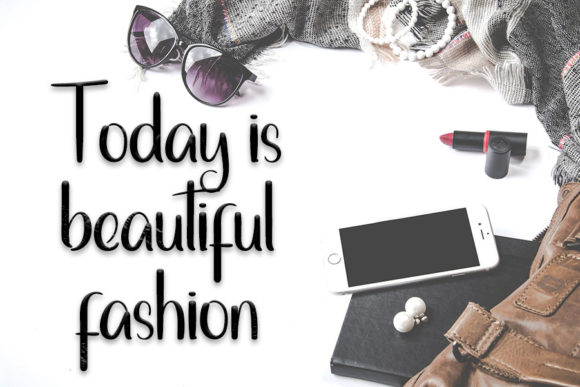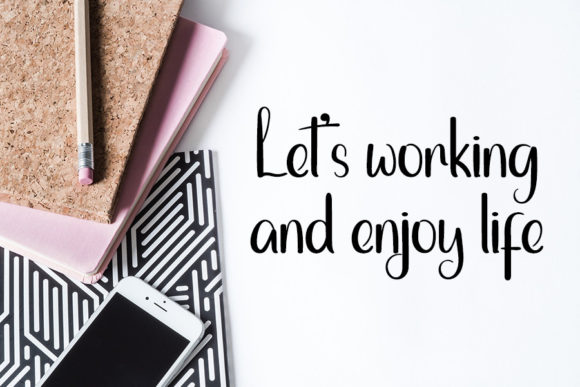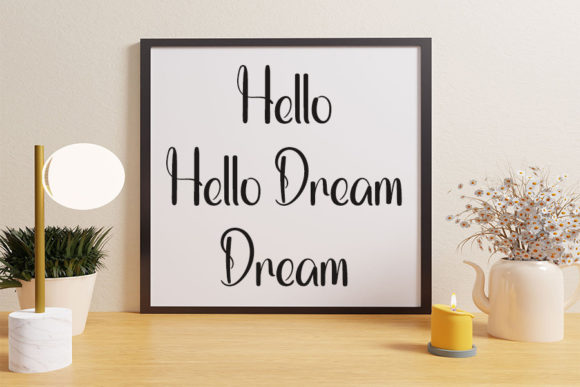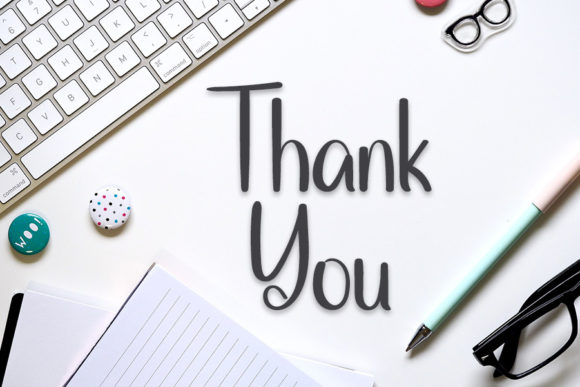
Hello Dream Font: Elevate Your Designs with Timeless Elegance
In the world of typography, fonts play a crucial role in conveying the tone and aesthetic of a design. For those seeking a stylish and contemporary handwritten font, Hello Dream is an exceptional choice. Inspired by timeless classic calligraphy, this font boasts a balanced and varied design, perfect for enhancing the beauty of your projects.
The Essence of Hello Dream Font
Hello Dream is a modern, elegant font that exudes sophistication and refinement. Its design is rooted in traditional calligraphy, yet it features a fresh and contemporary atmosphere that sets it apart from other fonts. The creator of Hello Dream has meticulously crafted each letter to ensure impeccable form, making it an excellent choice for designers and crafters looking to add a touch of luxury to their work.
Key Features of Hello Dream Font
- Handwritten with a Personal Touch: Hello Dream boasts a beautiful, handwritten style that adds a personal touch to any design. Its unique and varied letterforms ensure that your text will stand out.
- Contemporary yet Classic: This font strikes the perfect balance between modernity and timelessness. Its classic roots provide a sense of tradition, while its contemporary twist keeps it fresh and relevant.
- Balanced and Varied: The design of Hello Dream focuses on balance and variation, ensuring that your text flows smoothly and looks great in any context.
- Impeccable Form: Every letter in Hello Dream is crafted with attention to detail, guaranteeing a high level of readability and aesthetic appeal.
Applications of Hello Dream Font
Hello Dream’s versatility makes it suitable for a wide range of design projects. Here are some ideas to get you started:
- Branding and Logos: Create a lasting impression with a stylish logo that incorporates Hello Dream, perfect for businesses looking to convey elegance and sophistication.
- Wedding and Event Invitations: Add a touch of romance and luxury to your invitations with this beautiful font, making any event feel special.
- Packaging Design: Elevate your product packaging with Hello Dream, making your brand stand out on store shelves.
- Digital and Print Media: Use Hello Dream in your digital content, such as blogs, social media posts, and advertisements, or in print materials like brochures and posters, to add a classy touch.
Why Choose Hello Dream Font?
In a sea of fonts, Hello Dream stands out for several reasons:
- Unique Style: Its blend of classic and modern elements ensures your designs will be unique and memorable.
- Readability: Despite its elegant and cursive nature, Hello Dream maintains high readability, making it suitable for both headings and body text.
- Versatility: This font can be used across various design projects, from digital interfaces to print materials.
Hello Dream font is a stylish and versatile addition to any designer’s toolkit. Its unique blend of traditional calligraphy and modern elegance makes it perfect for a wide range of projects. Whether you’re working on branding, invitations, packaging, or digital content, Hello Dream can help you achieve a sophisticated and timeless look. With its impeccable form, balanced design, and contemporary atmosphere, Hello Dream is sure to elevate the beauty of your projects and make them truly unforgettable.